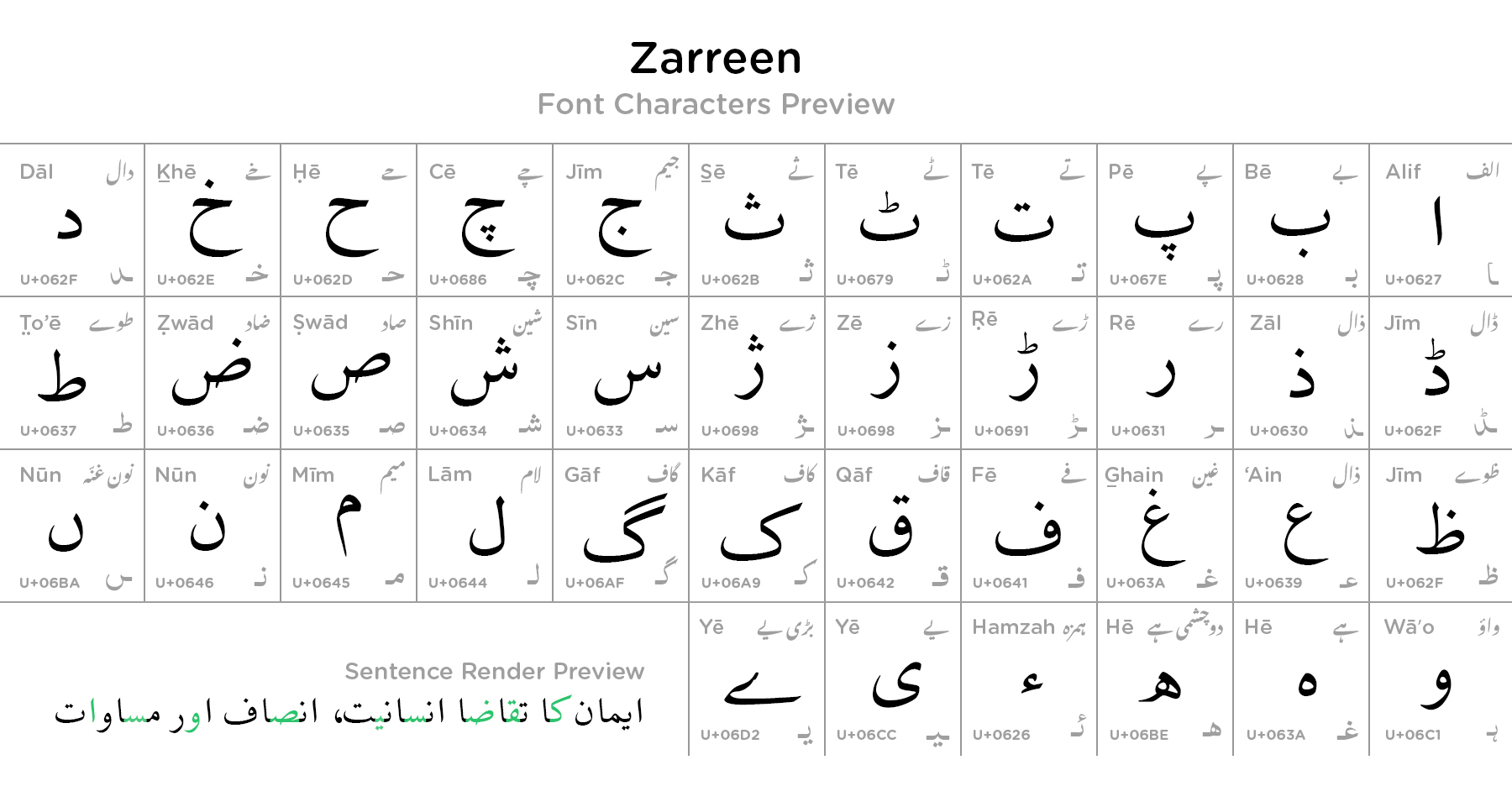
Zarreen, crafted by designer Ejaz Akhtar and produced by MacFarsi, is a regular display font inspired by the elegant Naskh script. With an enormous charset of 945 characters and symbols and 845 glyphs, this font provides foundation for designing in different typographic projects. Moreover, with its robust language support, including Arabic, Latin, Urdu, Greek, and more, its appeal increases even more. With a normal font weight, the typeface exhibits moderately thickened letters sporting sharp tails and blunt corners that remind us of traditional Qalam writing. Its thickness varies subtly throughout the letterforms, accompanied by impactful and dynamic strokes that ensure exceptional legibility on screens. It comes in 3 different weights including: